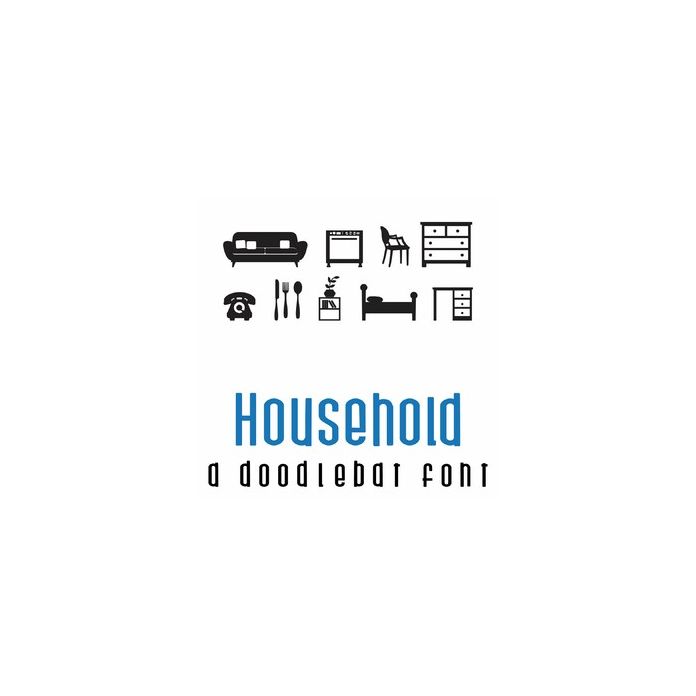
This fun doodlebat font features 36 household items. Perfect for cards, crafts, gifts, decor, scrap book pages, planner stickers and more! Glyphs are A-Z and 0-9.